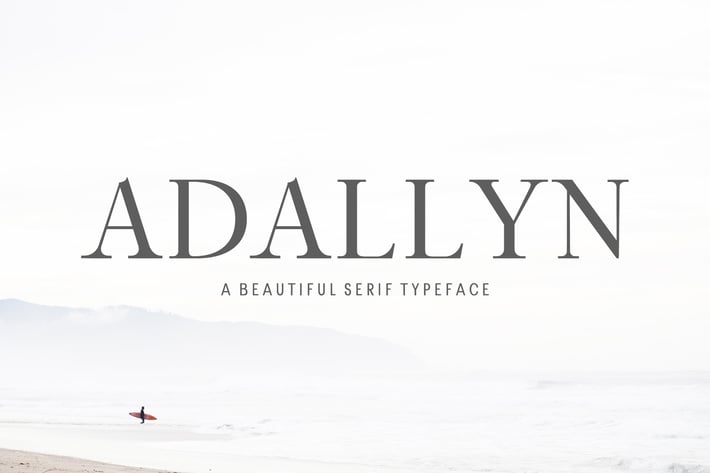
Adallyn Serif Font Family Pack
Adallyn Serif Font Family Pack is a beautiful serif font comes with 5 different variations. It includes all basic glyphs with Non-English characters. It can be used for headlines, posters, branding, packaging, presentations, logo, quotes, titles, magazines headings, web layouts, advertising, invitations, packaging design, books, and nearly any creative design.
Included Features:
- Font Weight: Regular, Light, Smooth and Bold
Adallyn Font Features:
- Uppercase Letters
- Lowercase Letters
- Numbers and Punctuation
- Non English Characters ( Latin Supplement + Latin Extended A)